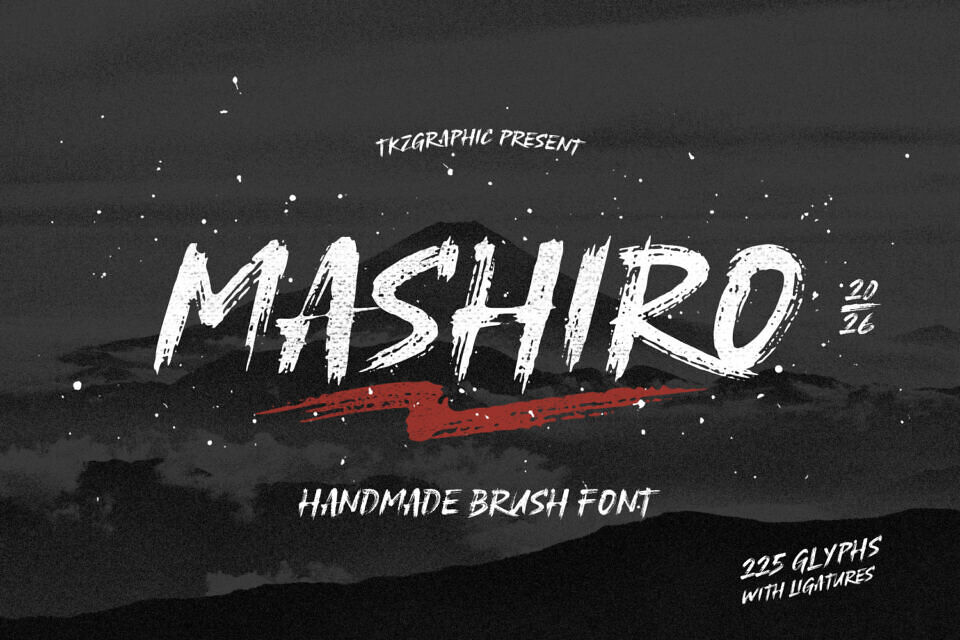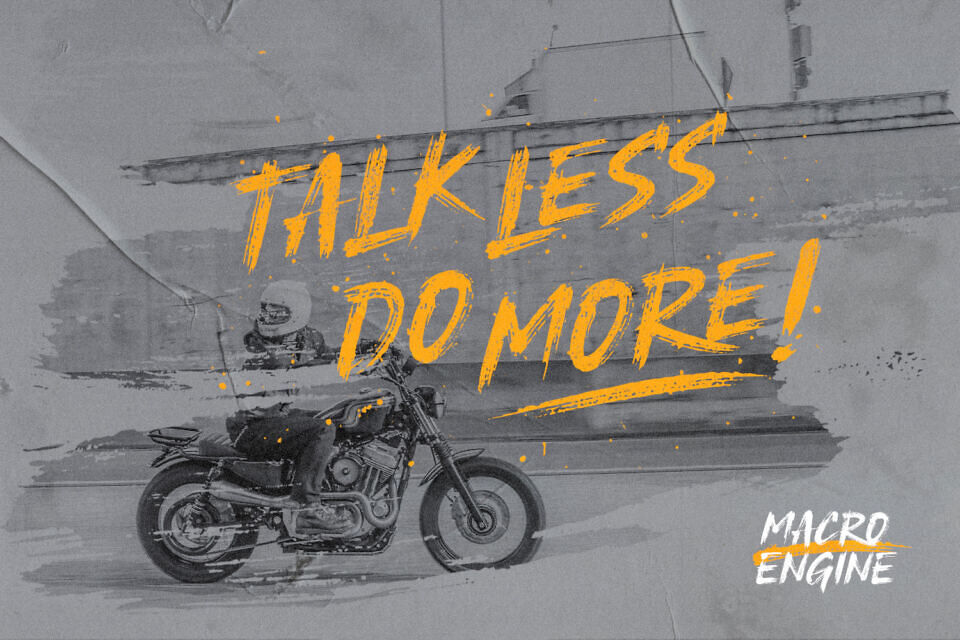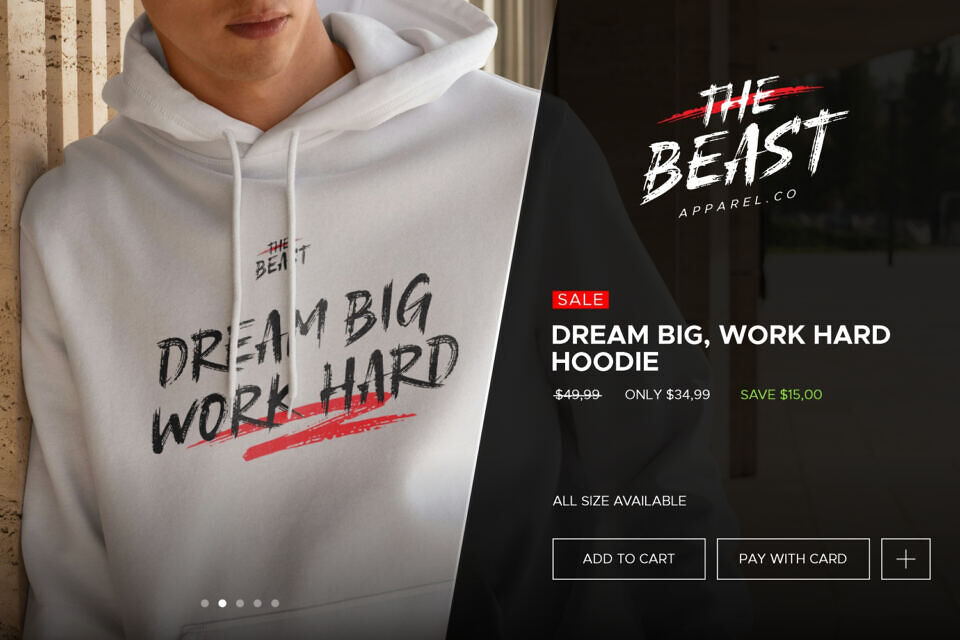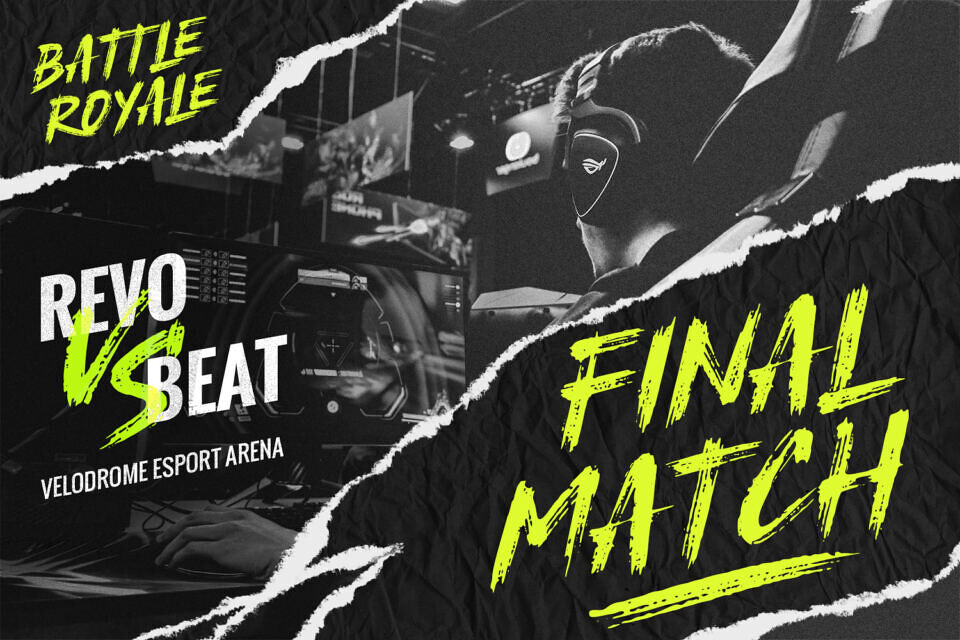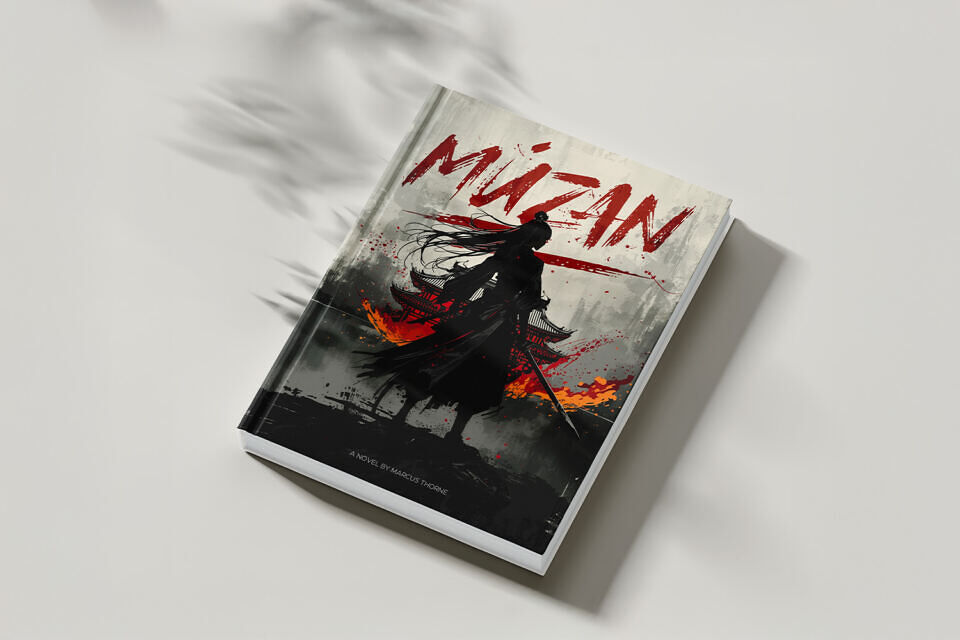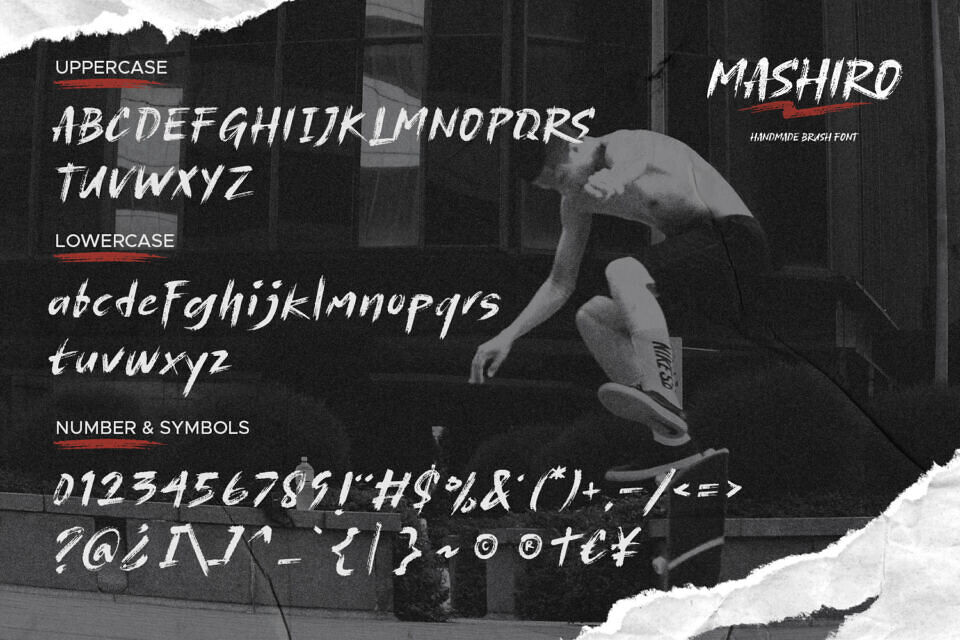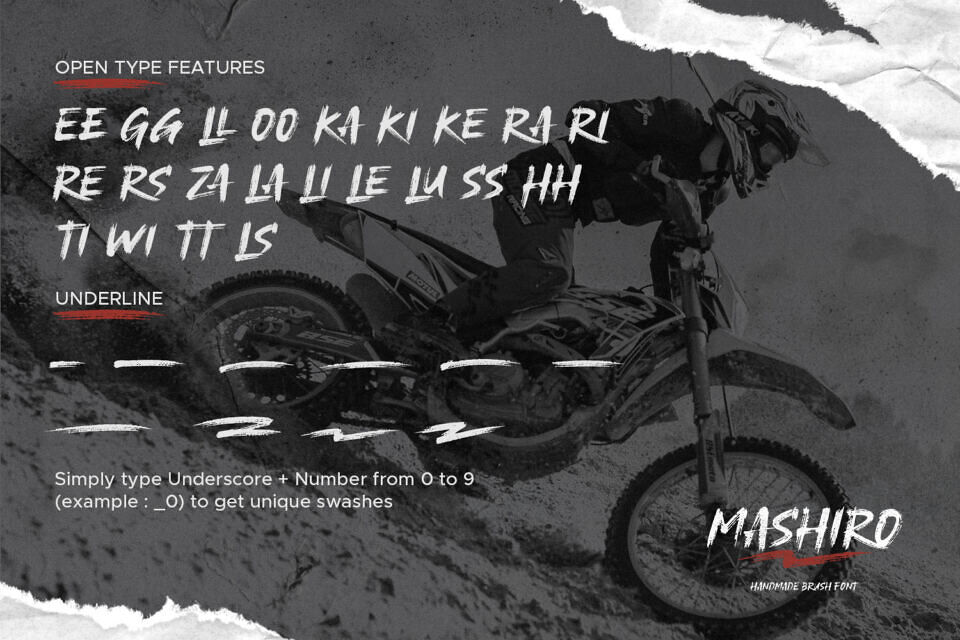
Mashiro Font
The Mashiro font boasts a distinctive, hand-painted look with rough textures and edges. Featuring over 225 glyphs and stylized ligatures, it offers extensive customization options. This unique font is perfect for creating bold, eye-catching designs, making it a great fit for action-packed titles, martial arts logos, music festival posters, and edgy streetwear branding.
Mashiro typeface is built for movement and speed, making it perfect for sports apparel and energetic social media campaigns. Use the included ligatures to create unique wordmarks that feel hand-lettered by a master artist.